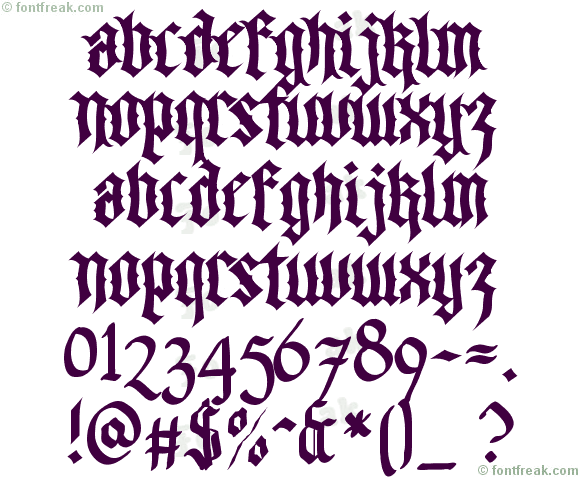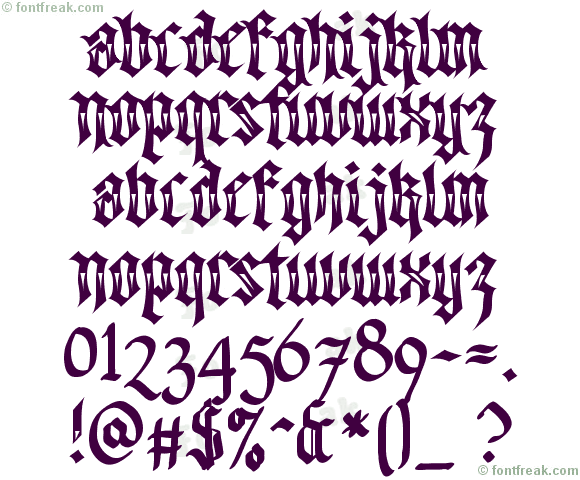
Walk Da Walk Three
About Walk Da Walk Three
Introducing the Walk Da Walk Three font by Mans Greback, a striking display typeface that embodies a unique blend of gothic and contemporary styles. This font is categorized as a decorative typeface, making it an excellent choice for projects that require a bold visual statement. The strokes exhibit a dynamic weight, characterized by sharp angles and intricate details that add a sense of drama and flair. The contrasting elements within the letters create an eye-catching visual rhythm, while the spacing between characters is thoughtfully designed to maintain legibility without sacrificing style.
Walk Da Walk Three is particularly well-suited for specific use cases that can benefit from its distinct aesthetic. It shines in the creation of edgy movie posters, where its dramatic flair can draw attention and set the tone. Additionally, this font is perfect for music-related graphics, such as album covers or event flyers, where a sense of attitude and personality is essential. Its bold appearance also makes it an excellent choice for branding materials, especially for businesses looking to convey a strong identity, such as tattoo parlors or alternative fashion stores. Content creators and graphic designers will find that it adds a unique touch to their projects, elevating the overall design.